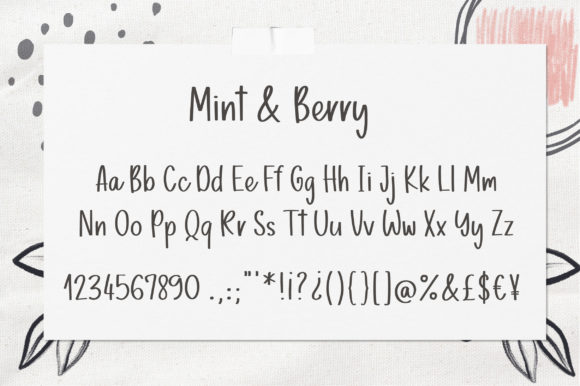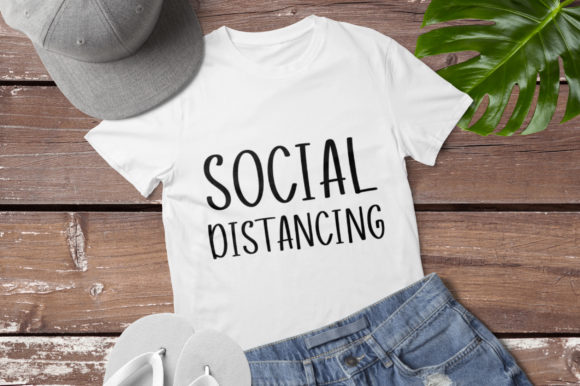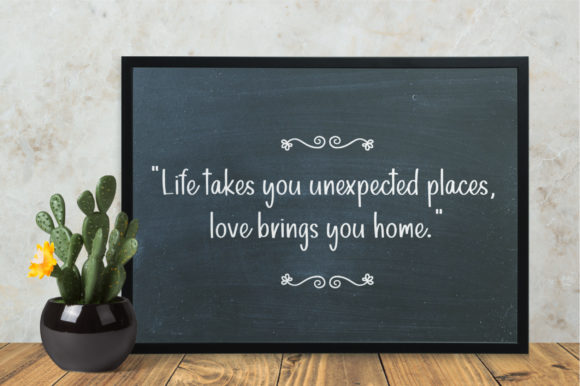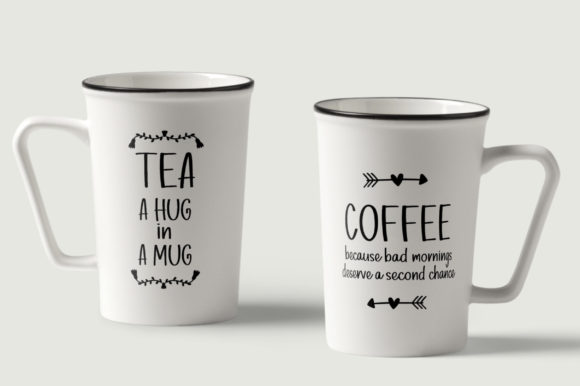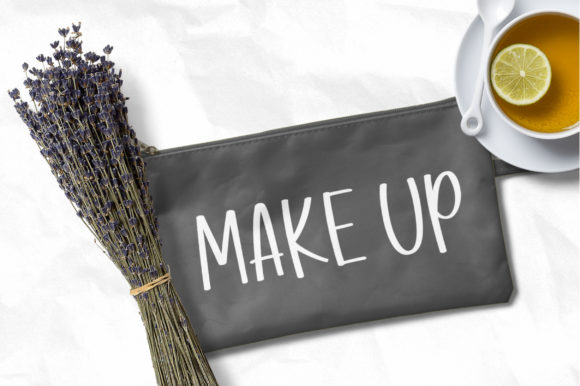
Mint & Berry Font
About Mint & Berry Font
Mint & Berry is a cute and playful handwritten font. Friendly and uplifting, this font is the perfect choice for each of your crafting needs.